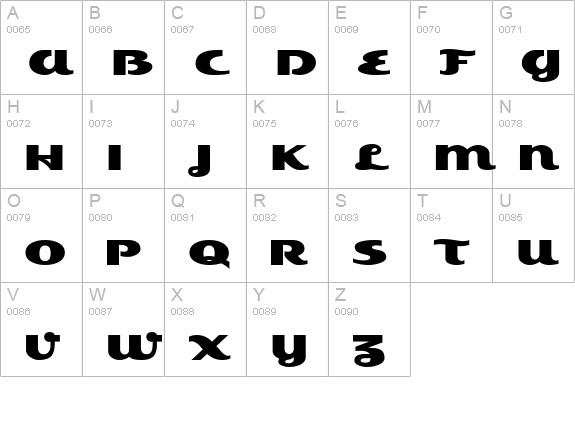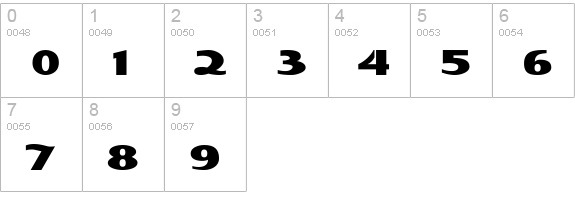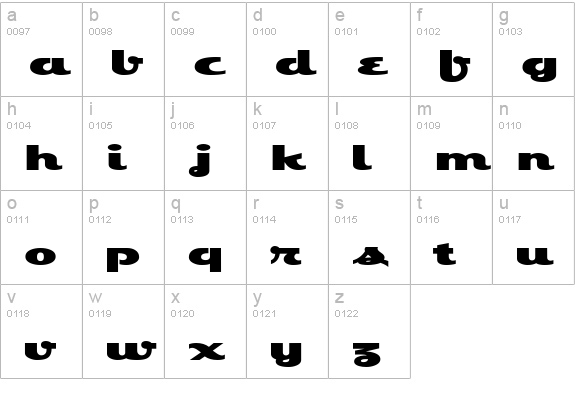
Esquivel Font Details
Esquivel font is a stylish and modern typeface that exudes elegance and sophistication. With its unique combination of sleek lines and playful curves, Esquivel is perfect for adding a touch of flair to your design projects. This versatile font is suitable for a wide range of applications, from logos and branding to posters and invitations. What sets Esquivel apart is its seamless blend of classic and contemporary elements, making it a standout choice for anyone looking to make a statement with their typography. Its legibility and readability also make it a practical option for both print and digital media. Best of all, Esquivel font is available for free download at FontsMarket.com, making it easily accessible to designers and creatives looking to elevate their work with a touch of sophistication. Don't miss out on the opportunity to add this stunning font to your collection today!